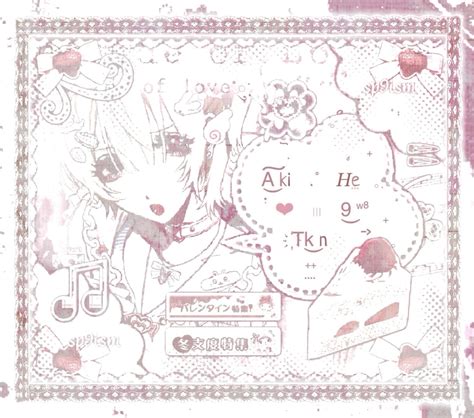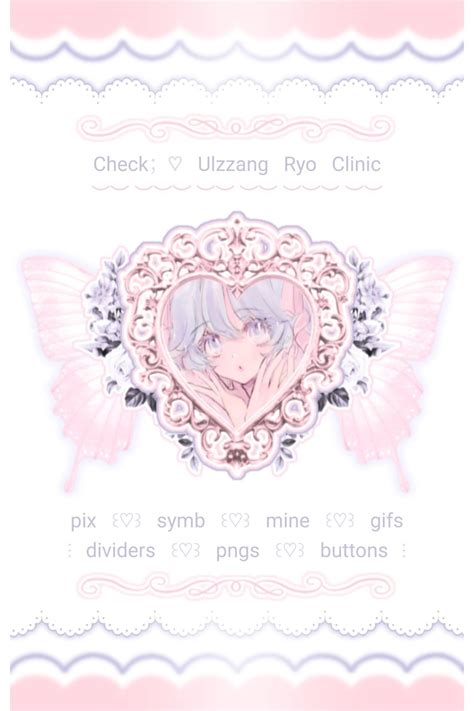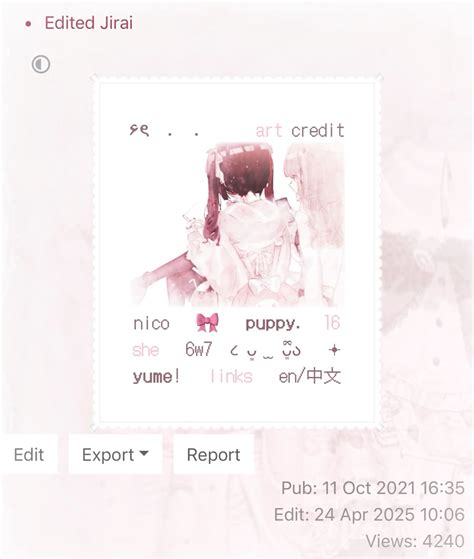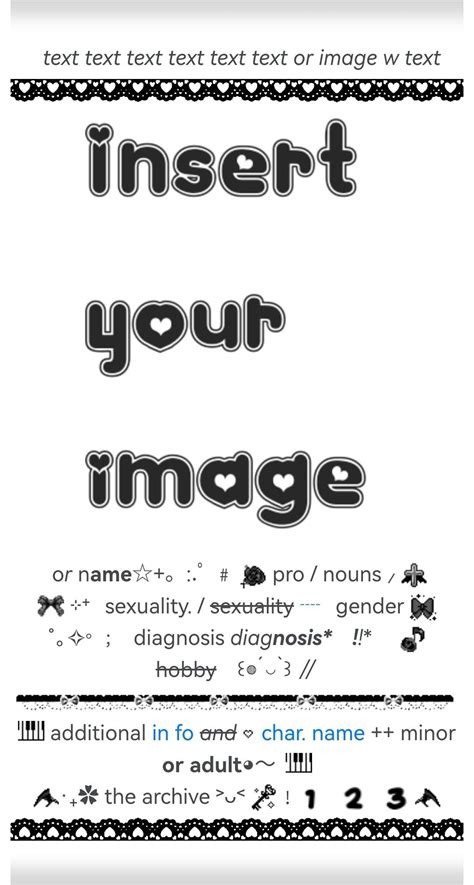
Finding the perfect Font For Rentry can importantly advance the aesthetical appeal and readability of your notes and public page. Rentry is a minimalist, markdown-based program favored by divine for its simplicity and clean interface. However, because it relies on standard markdown, user much look for ways to custom-make the composition to distinguish their message from the nonremittal looking. Take the right face is not merely about style; it is about constitute a optic hierarchy that channelize the subscriber through your information effectively. Whether you are make technical corroboration, personal daybook, or originative storytelling page, the correct baptistry choice transmute the subscriber's experience, get your text more professional and inviting.
Understanding Typography in Markdown Environments
When working within a platform like Rentry, you are limit by the spheric styling apply to the papers. Markdown naturally prioritize functionality over design, but that does not mean you are stuck with a boring interface. Utilise custom CSS styling or specific markdown wrappers, you can influence the browser's font rendering to ensure your Font For Rentry selection is applied correctly.
The Role of Sans-Serif vs. Serif
Composition is oft categorized into two main radical: Sans-Serif and Serif. Each bring a different "voice" to your schoolbook:
- Sans-Serif (e.g., Inter, Roboto, Arial): These fonts are clean, modernistic, and highly legible on digital screens. They are the criterion for most minimalist web platforms.
- Serif (e.g., Sakartvelo, Times New Roman, Merriweather): These face volunteer a more traditional, pedantic, or editorial tone. They act well for long-form essay where you need to educe a signified of say-so or literary depth.
π‘ Note: Always trial your font pick on both roving and desktop screen to control that line high and character space do not break under different resolve.
Top Font Recommendations for Minimalist Pages
If you desire to maintain the clean, distraction-free artistic that Rentry is known for, choose a typeface that align with "modern minimalism" is key. Below is a dislocation of typeface that act exceptionally good for this specific use case:
| Font Name | Style | Good Usance |
|---|---|---|
| Inter | Sans-Serif | Technical corroboration & UI notes |
| Lora | Seriph | Creative writing & personal blog |
| JetBrains Mono | Monospaced | Encrypt snip & technical list |
| Open Sans | Sans-Serif | General information & legibility |
Why Monospace Fonts Matter
For those who use Rentry to host code snipping or technical checklists, a monospaced font is crucial. These baptistery assure that every character busy the same amount of horizontal space, which is critical for align column of information or properly dent codification blocks. Integrating a clear, clear monospaced Font For Rentry can make your technical guidebook much easier for others to simulate and implement.
Technical Implementation Tips
To enforce your craved fashion, you will typically bank on the standard markdown injectant method endorse by the editor. By wrap your schoolbook in spans or using the built-in HTML support, you can dictate the font-family. Proceed in mind that web-safe baptistery are the most reliable option, as they are pre-installed on near every operating scheme.
- Keep it simple: Avoid mixing more than two fonts per page.
- Mind the weight: Ensure you have the bold and italic variance of your face enable so that the markdown syntax (e.g., text ) renders correctly.
- Approachability: Eminent line is better than flashy, slender typeface. Guarantee your text remain accessible to those with visual impairments.
Choosing the right typeface for your pages is a balancing act between personal discernment and reader approachability. By bind to houseclean, extremely clear fonts, you ensure that your content remains professional and engage irrespective of the device your hearing purpose. Whether you opt for a sleek sans-serif for modern technological tone or a classic serif for narrative substance, the goal is always to reduce friction between the reader and your content. Focus on conserve ordered spacing, coherent hierarchy, and high line to create a svelte final yield that showcases your penning in the best potential light, finally allowing the quality of your content to stand as the primary direction of your typography strategy.